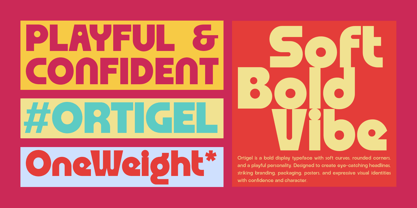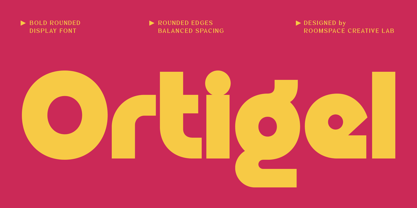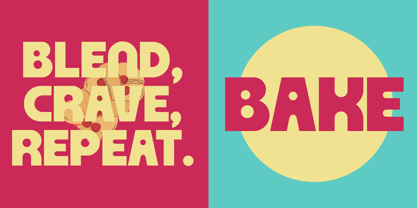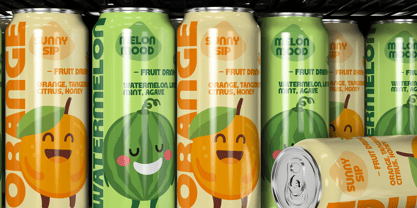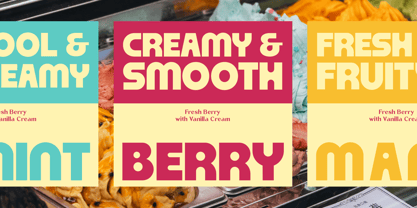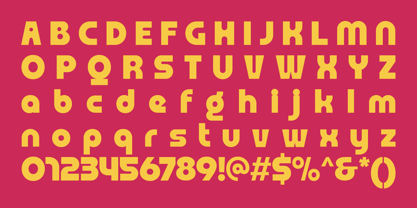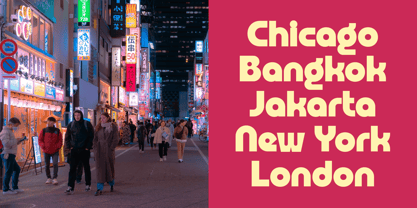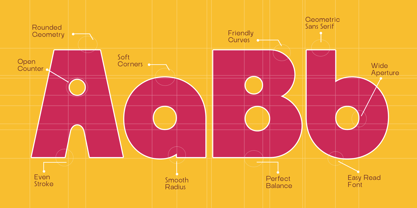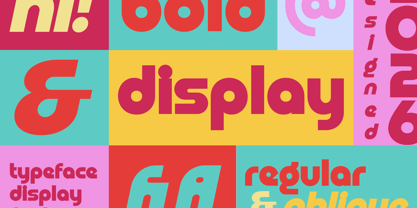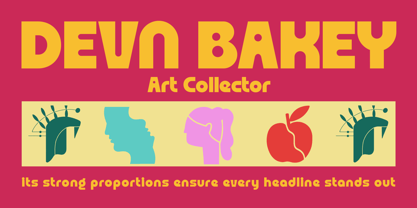
Ortigel
Introducing Ortigel, a bold, rounded display typeface designed with soft curves, smooth corners, and balanced proportions to create a friendly yet striking appearance. Its geometric letterforms and wide apertures provide excellent readability while maintaining a playful personality, making it perfect for branding, logos, packaging, posters, headlines, editorial designs, social media graphics, and other creative projects that demand strong visual impact.
Ortigel combines bold shapes with rounded details to deliver a warm, modern, and expressive look. It also comes with complete multilingual support, making it suitable for a wide variety of languages and international design projects.